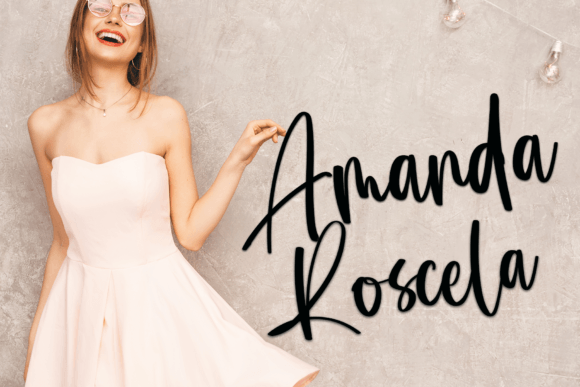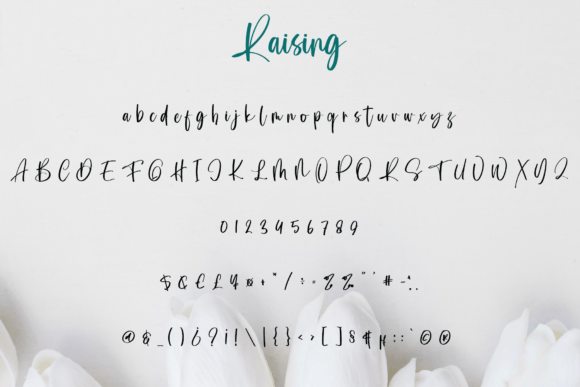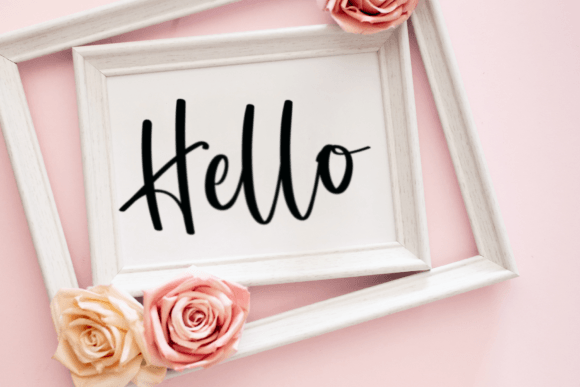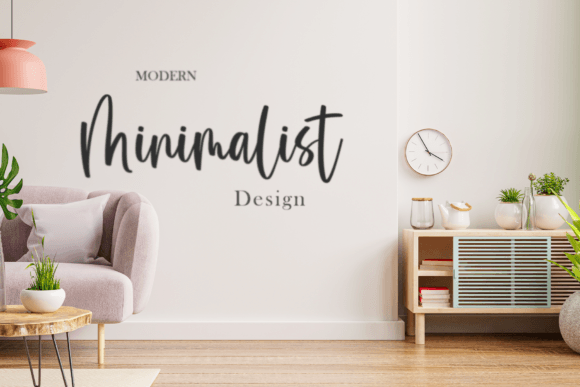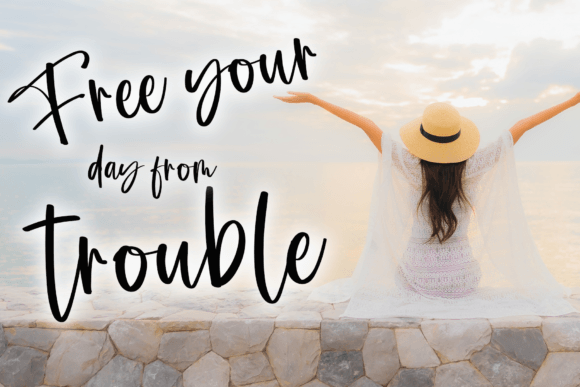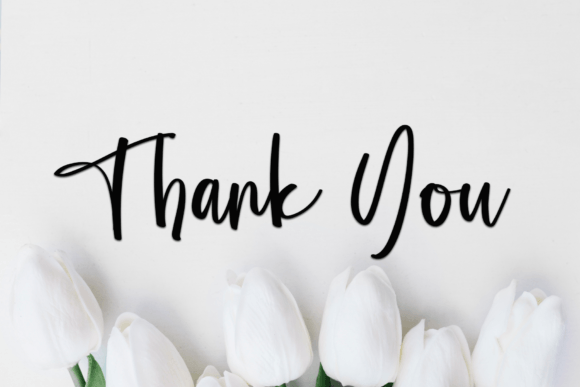
Introduction to Raising Font
Have you ever been working on a design project, pouring your heart and soul into every detail, only to feel like something’s missing? That’s when you stumble upon the perfect font – a game-changer that elevates your entire creative vision. For designers, finding the right font can be a challenge, but what if I told you there’s a stunning solution that’s sure to captivate your audience? Welcome to the world of Raising Font, a gorgeous handwritten font that adds a touch of elegance and whimsy to any project.
Whether you’re working on a product packaging design, crafting a magazine cover, or creating social media posts, Raising Font is the perfect addition to your design arsenal. With its high-quality, transparent background, this font is a versatile design resource that’s sure to make your work stand out. And the best part? You can download it for free, making it an invaluable asset for any creative project.
- Large character set with 100+ glyphs, covering a wide range of languages and characters.
- Perfect for use in logo design, branding materials, and other creative projects where a unique, high-quality font is required.
Honest Review: Raising Font
I recently stumbled upon Raising Font and I must say it’s a great addition to any design resource library. The free download was a pleasant surprise, and I was excited to incorporate it into my latest creative project.
What works well with Raising Font is its high quality and versatility. The font comes in various weights and styles, making it easy to find the perfect match for your design. I also appreciated the transparent background option, which allowed me to easily combine the font with other design elements.
- ✨ High-quality font with various weights and styles
- ✨ Transparent background option for easy design integration
However, I did encounter some limitations with Raising Font. The font library could be more extensive, and I would have liked to see more creative project examples to draw inspiration from.
Overall, I’m impressed with Raising Font and would recommend it to fellow designers. Its high quality and versatility make it a valuable addition to any design resource library.
Raising Font
Raising Font is a versatile design resource ideal for creative projects. It offers a high-quality, transparent background image that can be easily edited and customized to suit your needs.
Tips for Getting the Most Out of Raising Font
Here are some tips to help you get the most out of Raising Font:
- Experiment with different colors and transparency levels to create a unique look.
- Use Raising Font in combination with other design elements to create a cohesive design.
Raising Font is commonly used in:
- Graphic design projects
- Web design projects
Alternatives to Raising Font
1. Font Scaling
Font scaling is a design technique that involves adjusting the size of text elements to achieve a desired visual effect. It’s often used in creative projects where a high-quality, professional look is required. When to use: When you need to adjust the size of text without changing its baseline. How it compares to Raising Font: Unlike Raising Font, which only increases the vertical size of text, font scaling allows for more precise control over text size.
2. Text Layering
Text layering involves placing text elements on top of each other to create a layered, dimensional effect. It’s a popular design resource for creative projects that require a high level of visual interest. When to use: When you want to add depth and dimension to your text elements. How it compares to Raising Font: Text layering offers more creative possibilities than Raising Font, but can be more complex to implement.